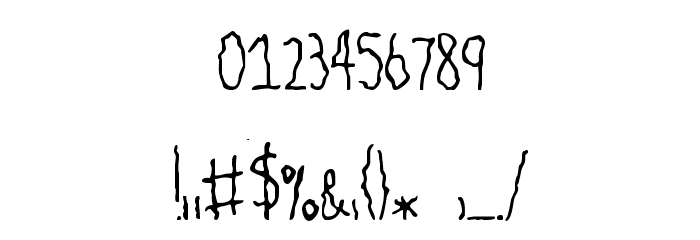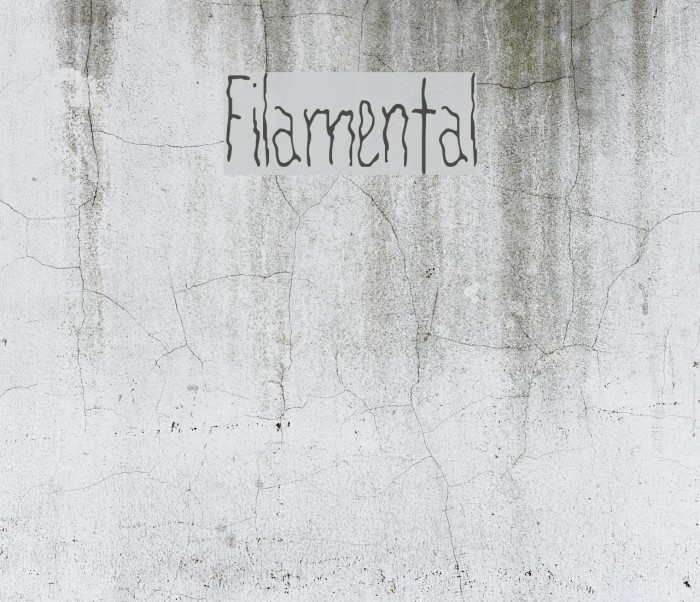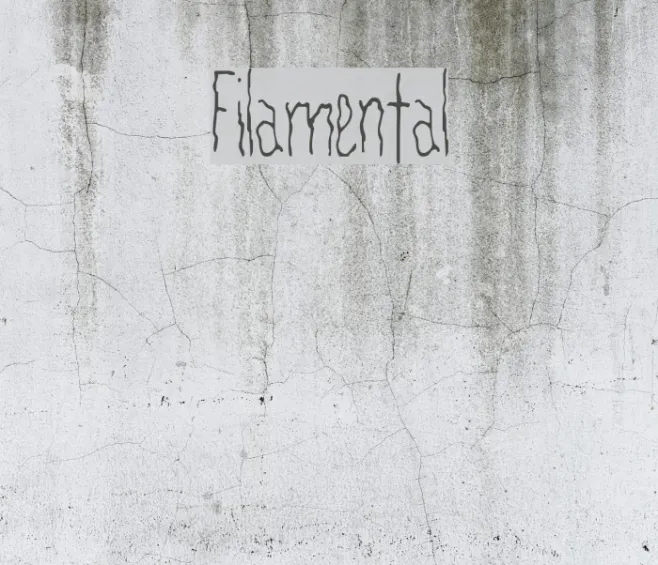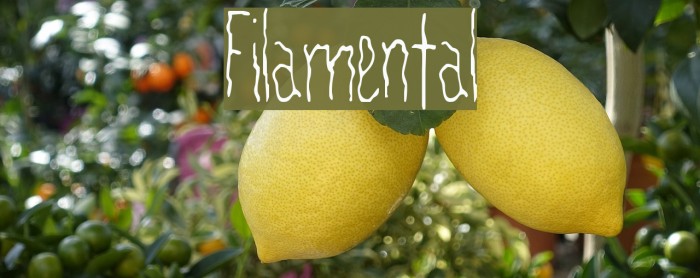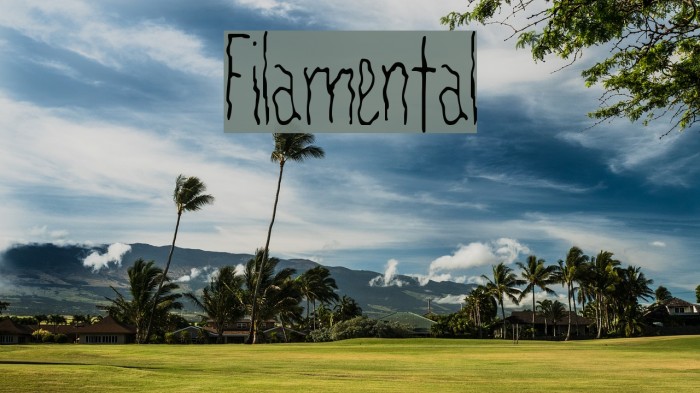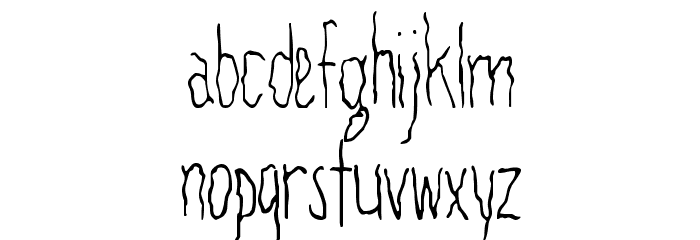
Filamental Font
Filamental Description
This font features a unique, hand-drawn appearance with thin, irregular strokes that give it a filament-like texture. The characters are elongated and slightly distorted, creating a whimsical and artistic feel. The uppercase and lowercase letters maintain a consistent style, with the uppercase being slightly taller and more pronounced. Numbers and special characters follow the same design principles, ensuring uniformity across all glyphs. The overall look is playful yet edgy, making it suitable for creative projects that require a distinctive and unconventional typeface.
| Proposed Projects | Ideal for artistic posters, creative branding, unique invitations, and any project that benefits from a playful and unconventional typeface. |